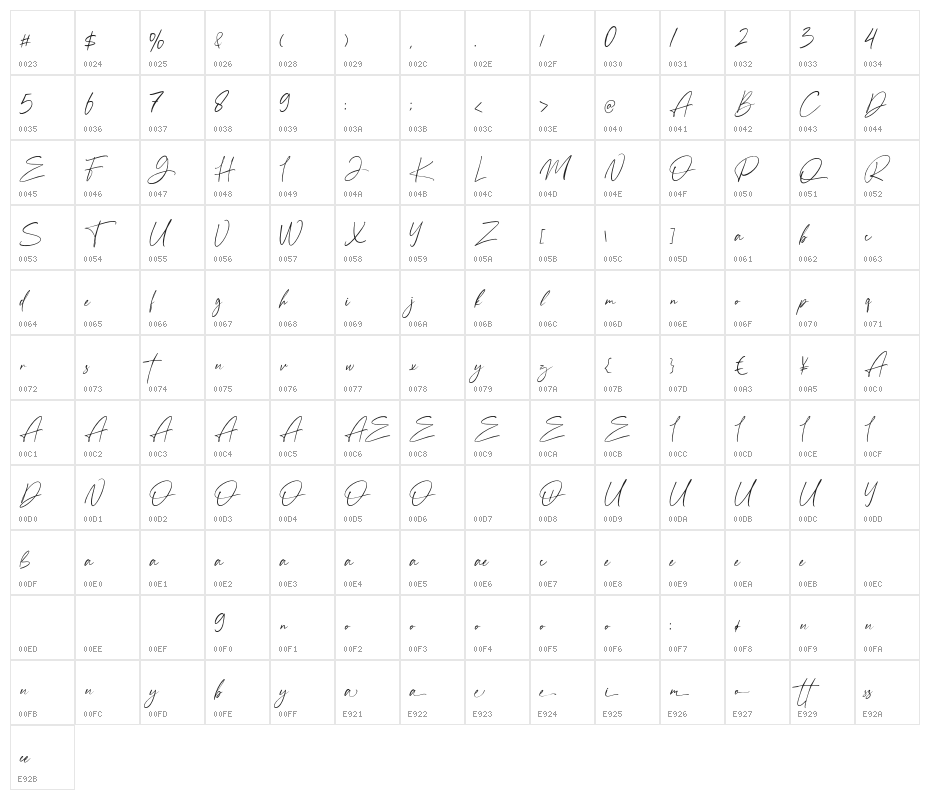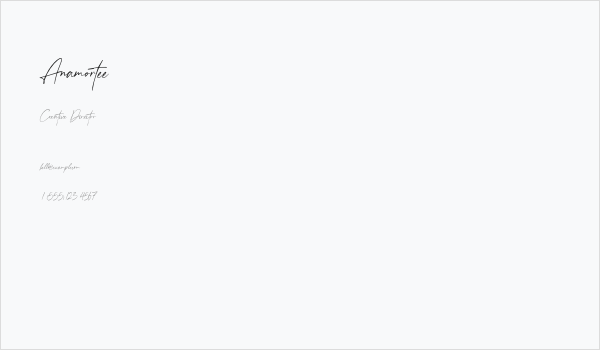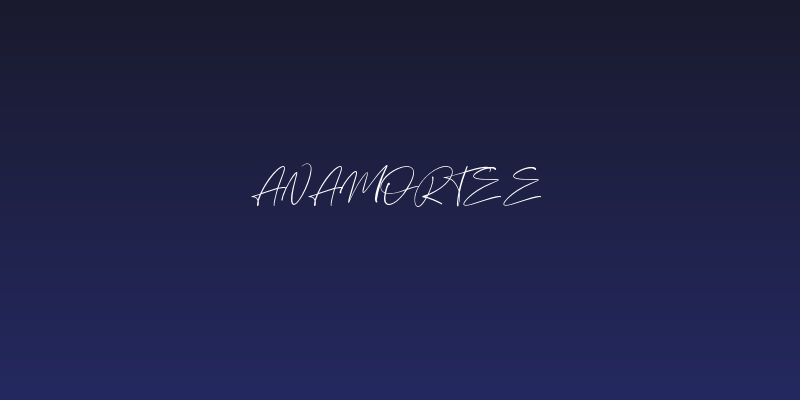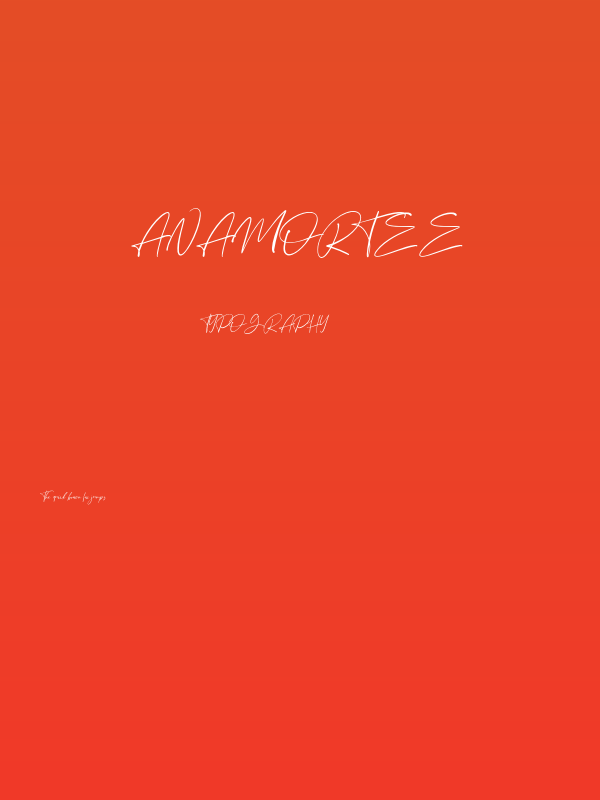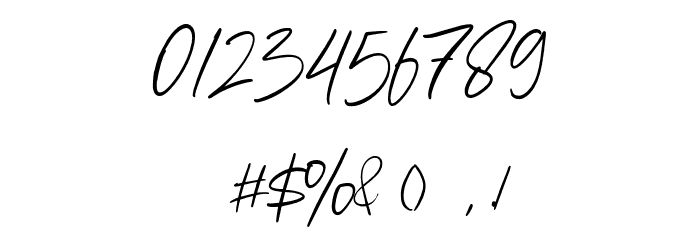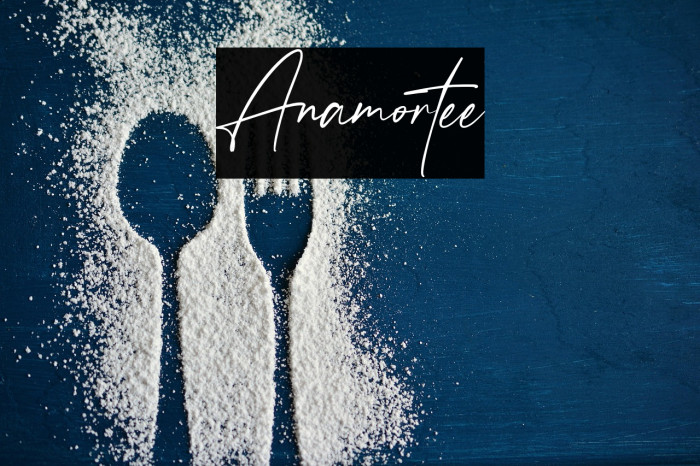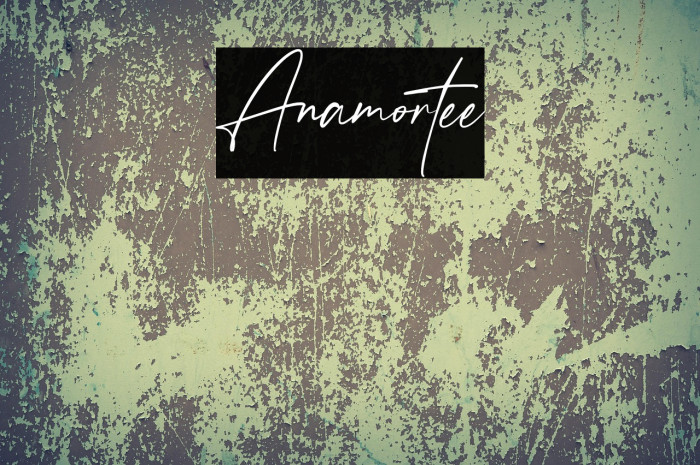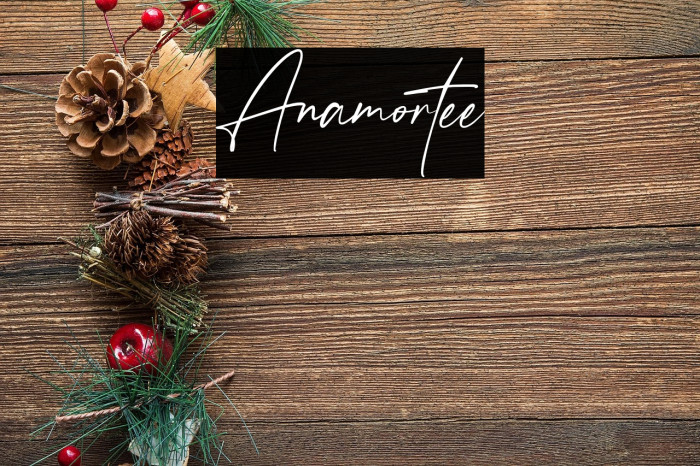
Anamortee Font
Anamortee Description
This font features an elegant, flowing script style with a handwritten appearance. The characters are connected in a fluid manner, giving it a natural and organic feel. The uppercase letters are tall and slightly slanted, while the lowercase letters maintain a consistent flow with gentle curves. The numbers and special characters complement the overall style, maintaining the same graceful and sophisticated look. The strokes are thin, with a medium contrast that adds to the font's delicate and refined appearance.
| Proposed Projects | Ideal for wedding invitations, greeting cards, personal branding, and elegant logo designs. |